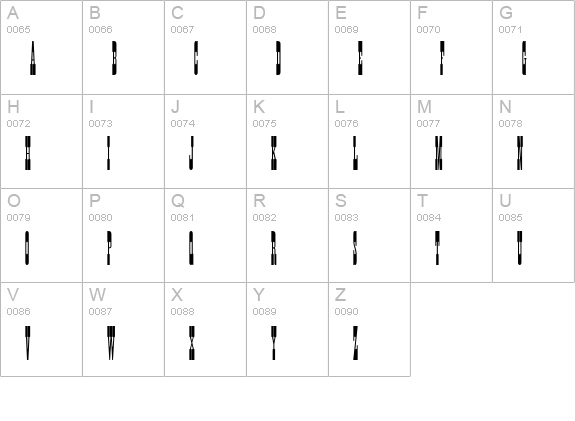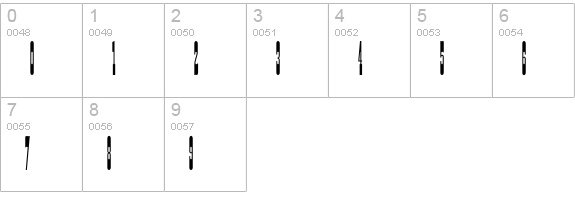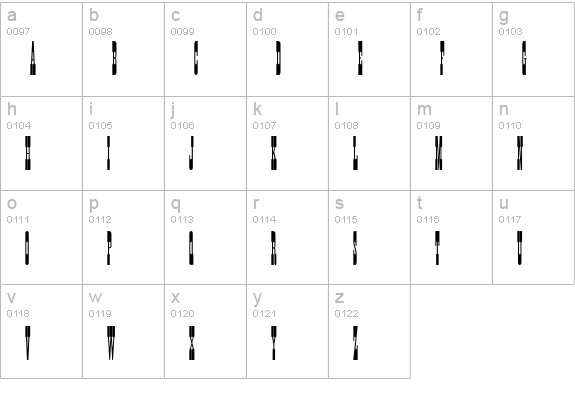
Posse Font Details
Posse font is a modern and stylish typeface that exudes sophistication and elegance. Its sleek and streamlined design makes it perfect for a wide range of projects, from branding to editorial design. With its clean lines and sharp angles, Posse font commands attention and adds a touch of professionalism to any creative work. What sets Posse font apart is its versatility - it can be used for both display and text purposes, making it a go-to choice for designers looking for a reliable and eye-catching font. Its wide range of weights and styles ensure that there is a variation suitable for any design need. The best part? Posse font is available for free download at FontsMarket.com. This means that you can easily access this high-quality typeface and elevate your designs without breaking the bank. Don't miss out on the opportunity to add Posse font to your font library and take your projects to the next level.